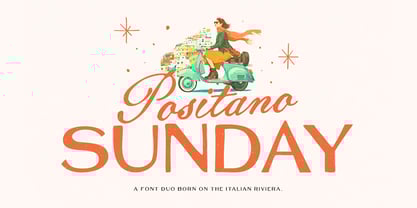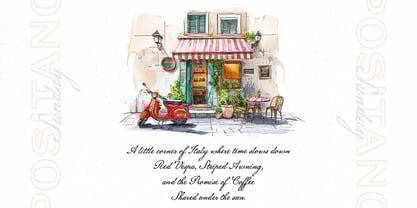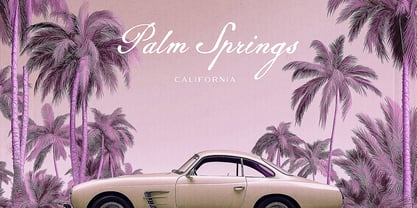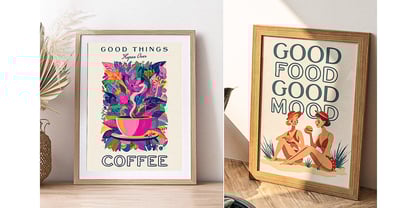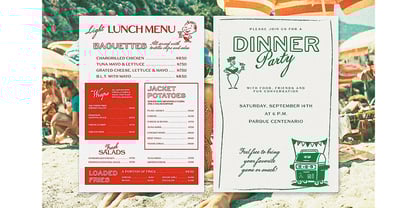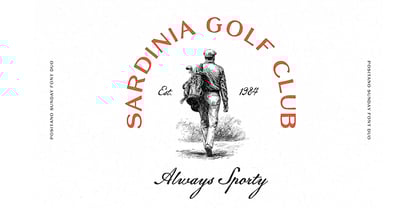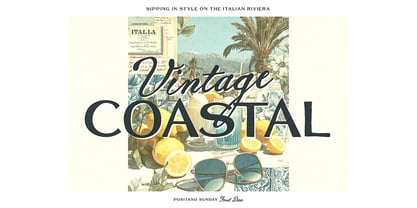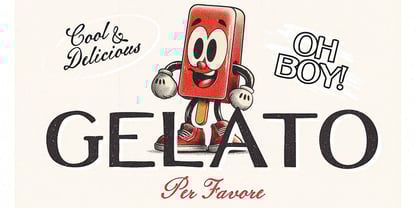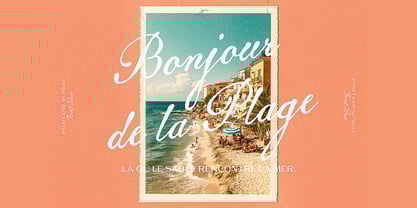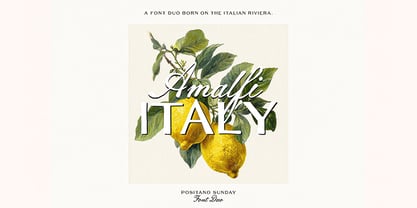
Positano Sunday
by Ivan Rosenberg
Positano Sunday Font Trio is a set of three typefaces inspired by the sunny Italian Riviera, vintage posters, and the charm of Mediterranean cafés and restaurants. This pack blends elegance with playfulness – perfect for branding, packaging, posters, or social media. Positano Sunday captures the carefree spirit of a Sunday on the Italian coast – joyful, relaxed, and effortlessly stylish. With three complementary fonts, you’ll have all you need to create unique, sunny, and memorable designs. What's included: Retro Sans – a bold, clean sans serif with a nostalgic 60s vibe. Script – a lively handwritten script that adds warmth and personality. Outline Sans – an outline version of Retro Sans for stylish contrast and creative layering. Perfect for café, bar, and restaurant logos & branding vintage-inspired posters and packaging lifestyle content and social media graphics